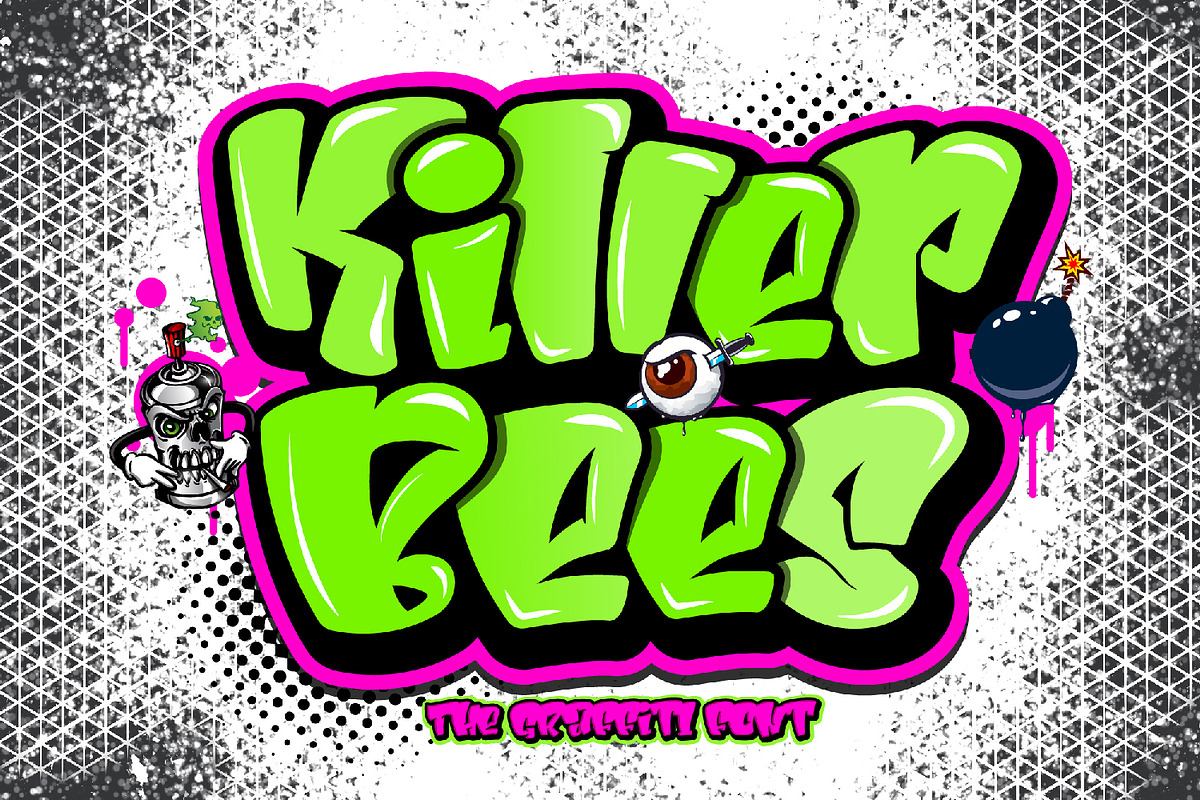
Killer Bees Font Free Download is a bold, energetic display typeface that stings with personality. With its sharp angles, aggressive styling, and urban flair, this font is perfect for sports graphics, streetwear branding, music covers, action movie posters, and anything that needs a fearless, eye-catching look.
Designed to grab attention, Killer Bees combines a rough, dynamic attitude with strong legibility. It’s ideal for headlines and logos where you want to make a powerful first impression. Whether you're going for edgy, extreme, or just full-throttle fun, this font delivers the punch.